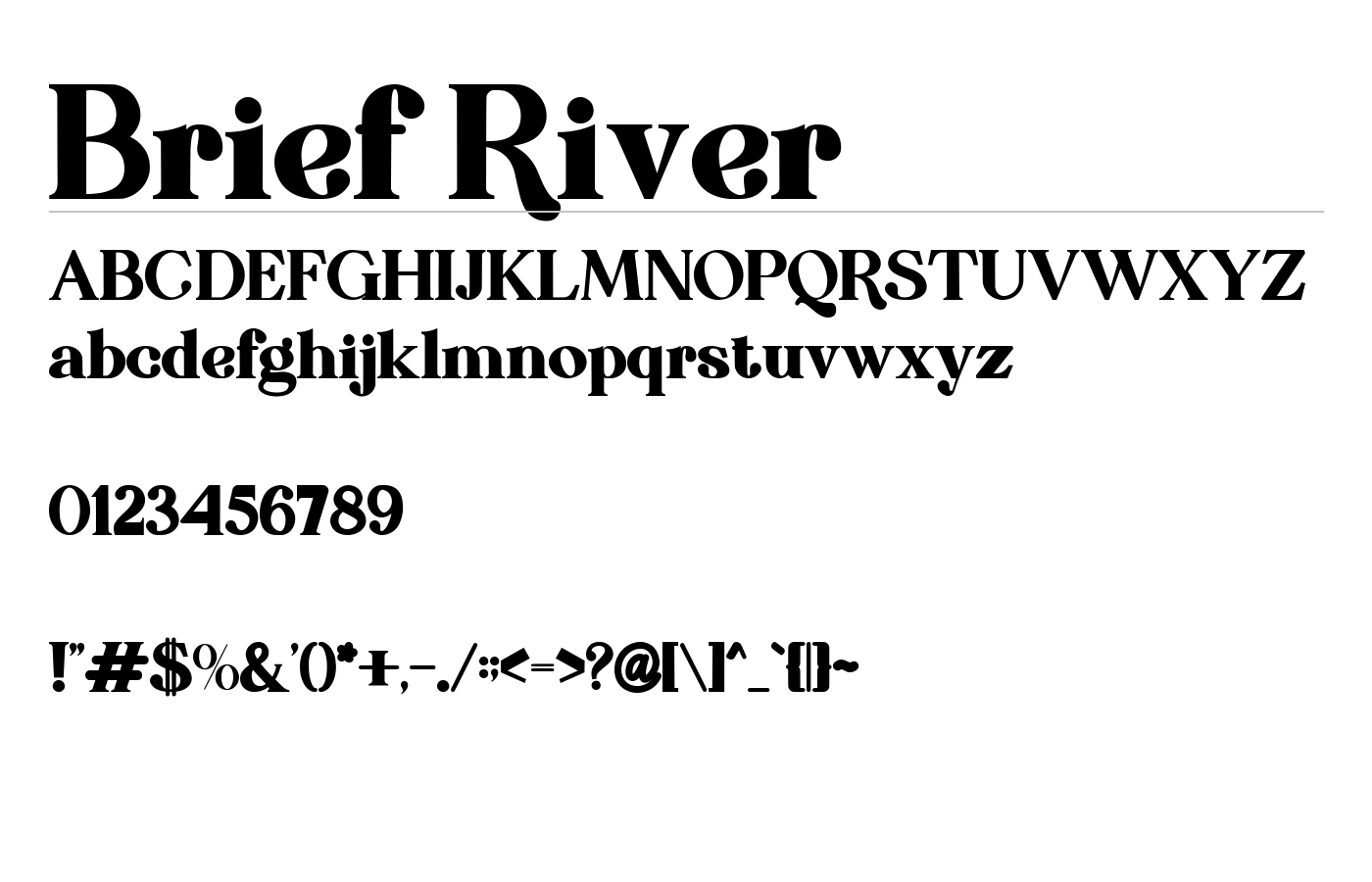
Brief River is a bold serif font with a strong presence and high contrast between thick and thin strokes, giving it a classic yet modern feel. Its wide stance, bracketed serifs, and distinctive letterforms make it ideal for headlines, logos, and editorial design where an elegant but assertive style is desired. This font works well in fashion and luxury branding, delivering sophistication with a touch of personality.
Brief River Font
About Brief River Font
| Font family | Brief River Font |
| Designer | Green Adventure std. 2021 |